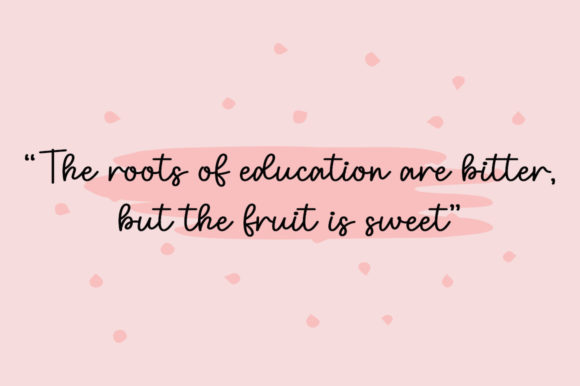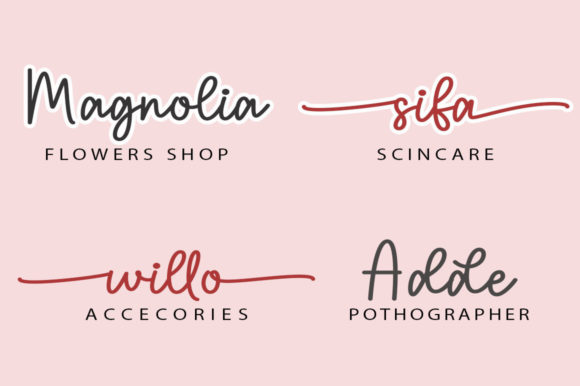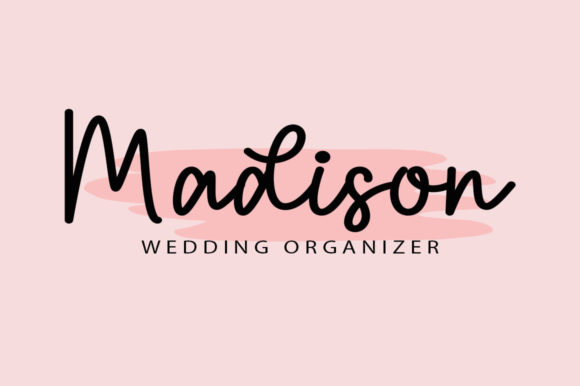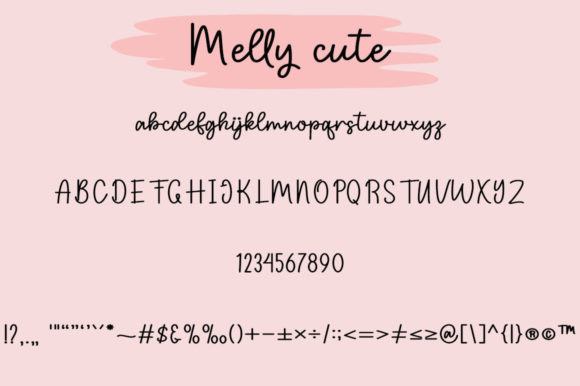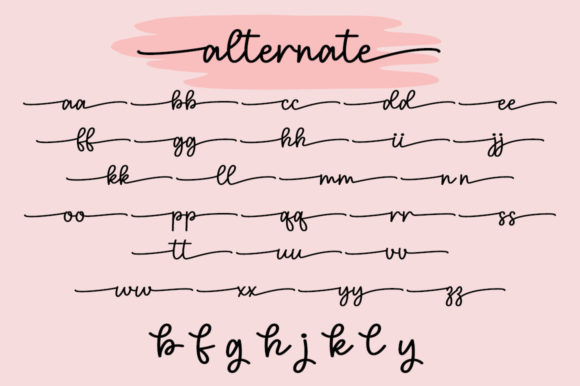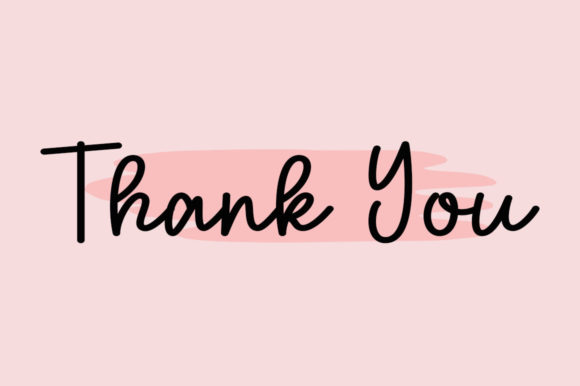
Introduction to Melly Cute Font
As a designer, have you ever found yourself struggling to convey the perfect mix of elegance and playfulness in a project? I know I have! It’s that moment when you’re working on a creative project, and you just can’t seem to find the right font to match your vision. But what if I told you that there’s a font that can solve that problem for you? Enter the Melly Cute Font, a stunning handwritten font that’s about to become your new design best friend.
With its flowing, elegant strokes and classy calligraphic influences, the Melly Cute Font is the perfect addition to any design resource. Whether you’re working on a free download project or need a high-quality font for a paid client, this font is sure to impress. And the best part? It’s PUA encoded, making it easy to access all of its beautiful glyphs and swashes with ease. Let’s dive in and explore what makes the Melly Cute Font so valuable for designers like you.
Key Features of Melly Cute Font
- High-quality, cursive font with a playful and whimsical design, perfect for creative projects.
- Perfect for use in children’s books, greeting cards, and other creative projects that require a cute and playful touch.
- Easy to use and customize, making it an ideal font for designers and non-designers alike.
Honest Review: Melly Cute Font
I recently came across the Melly Cute Font and was excited to give it a try in my next creative project. As a designer, I’m always on the lookout for high-quality design resources that can elevate my work.
One of the things that stood out to me about the Melly Cute Font is its versatility. It’s perfect for a variety of design projects, from children’s books to social media graphics.
Here are some of the things that work well with the Melly Cute Font:
- High-quality design: The font is crisp and clean, making it perfect for digital design projects.
However, there are a few limitations to the Melly Cute Font:
- Limited font styles: The font only comes in a few different styles, which may limit its use in certain design projects.
- Not suitable for all design projects: The font’s cute and playful design may not be suitable for all design projects, such as corporate branding.
Overall, I think the Melly Cute Font is a great addition to any designer’s toolkit. While it may have some limitations, its high-quality design and free download make it a valuable resource for designers of all levels.
Tips for Getting the Most Out of Melly Cute Font
Use Melly Cute Font for creative projects such as greeting cards, party invitations, and social media graphics. You can also use it for free download resources, such as printables and digital papers, with a transparent background.
Is the Melly Cute Font suitable for high-quality design projects?
Yes, the Melly Cute Font is designed to be a high-quality design resource, perfect for creative projects that require a touch of elegance and sophistication. Its clean lines, simple shapes, and elegant typography make it an ideal choice for a wide range of design applications.